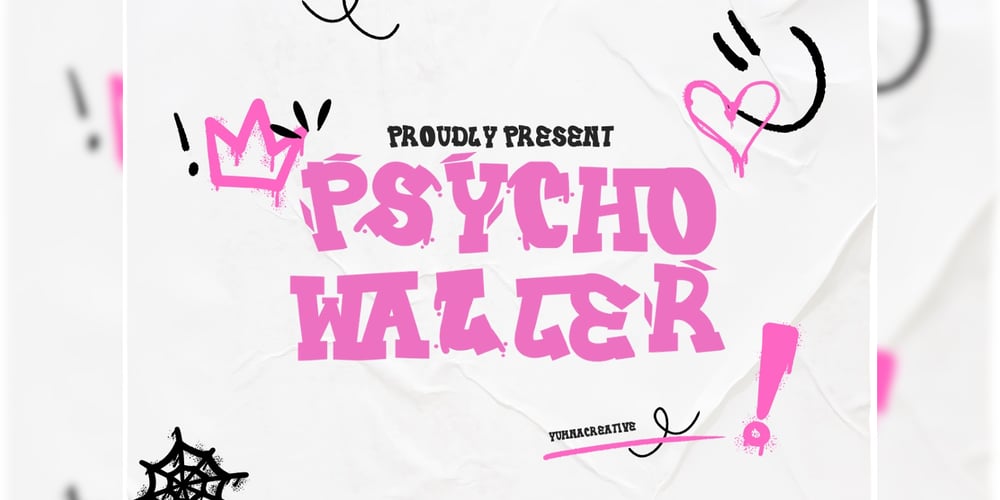
Psycho Waller
Psycho Waller font
Psycho Waller Font Family was designed by Dhimas Habibie and published by Yumnacreative. Psycho Waller contains 1 styles and family package options. Introducing Psycho Waller – Graffiti FontThis Font is a delicate, elegant and flowing handwritten font. It has beautiful and well as a unique blend of ligatures a letter, so that the authors compose it with a and little swirly embedding, so that a modern font is formed and ready to make a statement by adding elegant and unique flair to your next design project. Add it to your most creative ideas and notice how it makes them come alive!FEATURES- Uppercase and Lowercase letters- Numbering and Punctuations- Alternate & Ligature- Multilingual Supports- Works on PC or Mac- Simple Installation- Support Adobe Illustrator, Adobe Photoshop, Adobe InDesign, also works on Microsoft WordHope you Like it.Thanks.